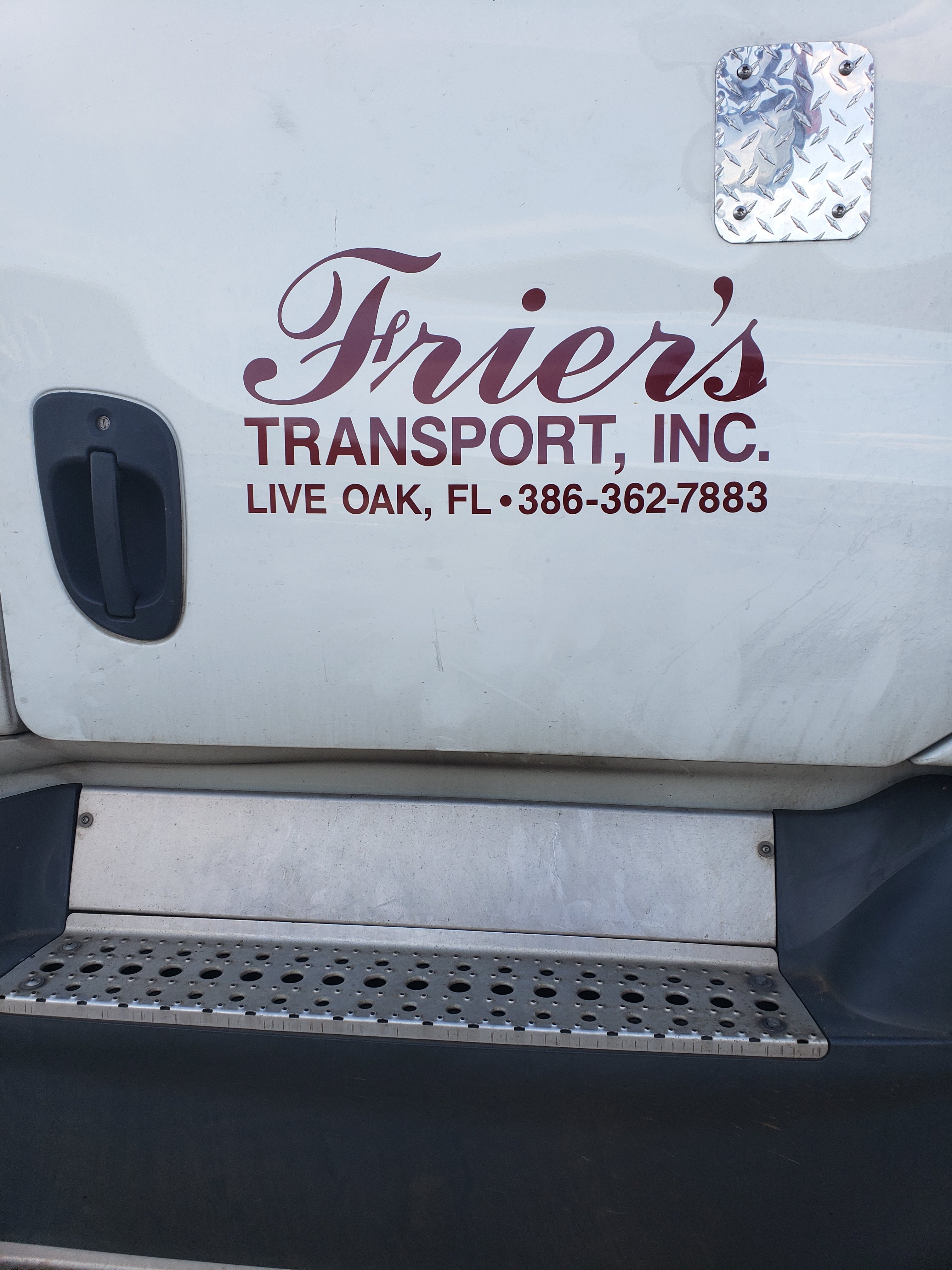
I need help with this font ( only where is says Frier's). I found a lot that look like the F but no the rest of the word. I was thinking it might be 2 fonts. Thanks in advance. Daniel
One of the many variants of Commercial Script .... stretched. Closest to Commercial Script D from URW (note the bowed out left leg on the r)